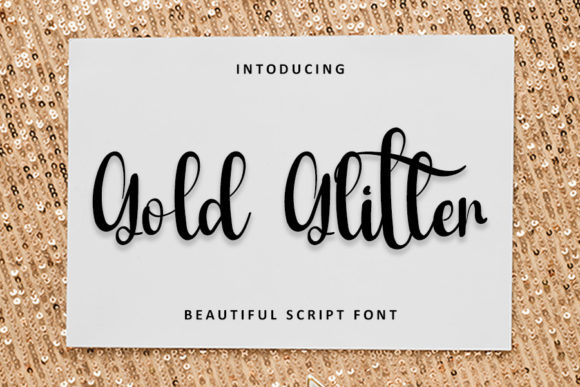
Immerse yourself in the world of sophistication and charm with "Gold Glitter Font," a script font family that exudes elegance and timeless beauty. Inspired by classic calligraphy, this font combines the allure of tradition with a modern twist, adding a touch of contemporary flair to your creative endeavors.
Journey through the realms of design with Gold Glitter, a font that captivates with its impeccable form and graceful curves. Its versatility knows no bounds, lending itself effortlessly to a myriad of projects, from exquisite wedding invitations and enchanting logos to heartfelt greeting cards and captivating social media graphics.
Unleash your imagination with Gold Glitter, the font that transforms your words into works of art. Its PUA encoding opens up a world of possibilities, granting you access to a treasure trove of glyphs and ligatures that elevate your designs to new heights. Discover the joy of effortless creativity as you explore the depths of this remarkable font family.
Embrace the splendor of Gold Glitter, the font that adds a touch of shimmer and shine to your digital creations. Its glittering allure will captivate your audience, leaving them spellbound by the sheer brilliance of your designs. Make a statement, leave a lasting impression, and let your creativity flourish with Gold Glitter.